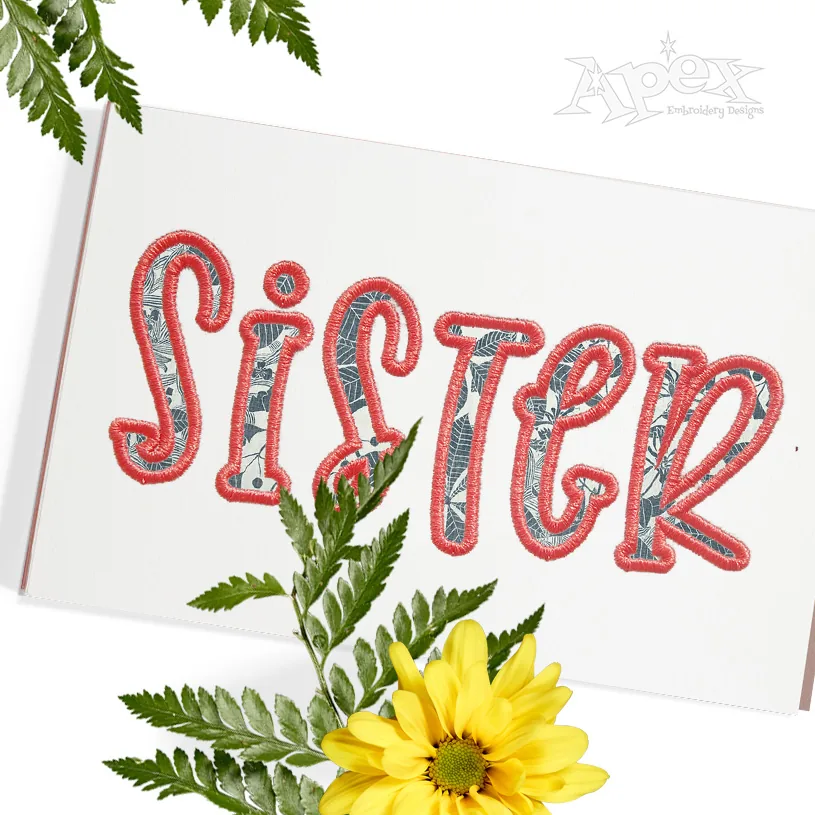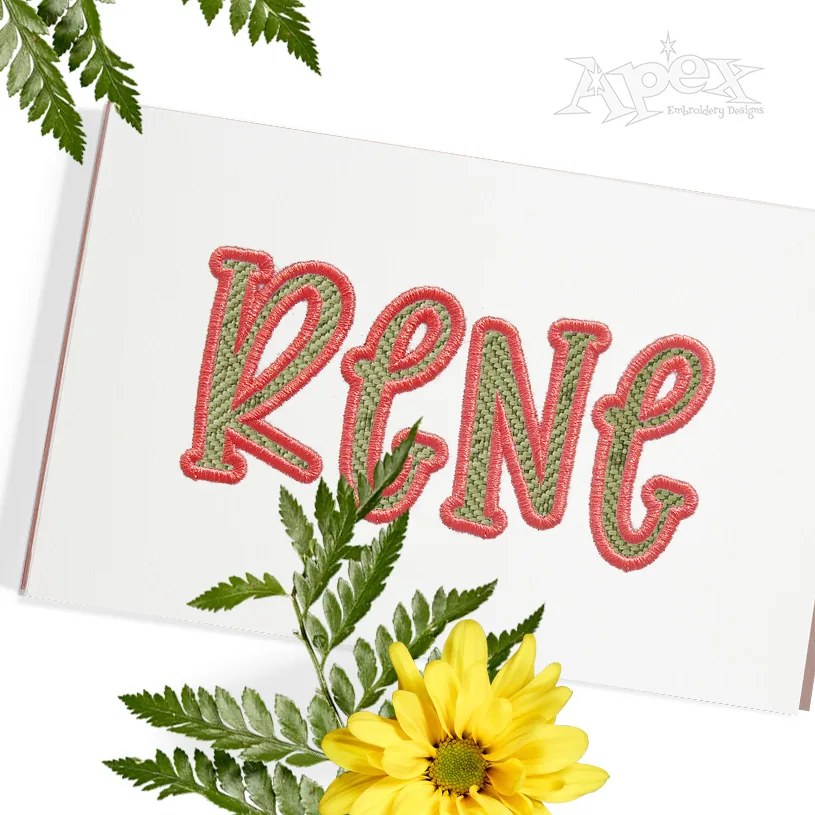
Juniper Applique Embroidery Font
Juniper was born from quiet mornings in the embroidery studio, drawn from the nostalgic warmth of rustic farmhouse script and hand-painted vintage signs. We designed this typeface to bring a soft, poetic cadence to modern applique, marrying sweeping handwritten ascenders with generous fabric windows that invite tactile storytelling. Each stroke effortlessly captures the unhurried grace of classic country living, transforming fabric scraps and lustrous thread into cherished personalized monograms and heirloom-worthy keepsakes.
Digitized to offer exquisite precision across a broad spectrum of projects, the Juniper Applique collection features full uppercase, lowercase, and thoughtfully digitized alternative lowercase glyphs to create authentic, hand-lettered connections. This complete suite arrives in four versatile, scale-balanced sizes:
Project Ideas for Juniper Applique
- Heirloom Nursery Quilts: Combine soft pastel chambray or ditsy floral appliques with smooth satin outlines to spell out your little one’s name across bespoke baby bedding.
- Personalized Canvas Market Totes: Stitch bold, botanical-print initials on heavy natural canvas for charming, personalized gifting.
- Farmhouse Kitchen & Table Linens: Elevate flour sack dish towels, runner ends, and linen cocktail napkins with delicate monograms for cozy, welcoming hospitality.
- Bespoke Resort Wear & Robes: Personalize the back of bridal robes, linen button-downs, or relaxed lounge sets for a custom, tailored boutique aesthetic.
- Holiday & Family Keepsakes: Use seasonal tartans, ticking stripes, or velvet applique inserts to create heirloom Christmas stockings and custom family pillows.
- Center Chest Placement: Position 3-inch or 4-inch letters centered between the armholes on crewnecks, cardigans, or baby rompers for an eye-catching, artisanal focal point.
- Corner Diagonal Accents: Orient the 1-inch or 2-inch lettering along a 45-degree angle approximately 1.5 to 2 inches from the hem of napkins, tea towels, and pocket handkerchiefs.
- Cuff & Hem Alignment: Use the 1-inch scale centered gracefully on shirt cuffs, sleeve borders, or pillowcase flanges for understated, bespoke monogramming.
- Off-Center Pillow Styling: Frame a modern linen throw cushion by placing a large, bold monogram in the lower right-hand quadrant for a curated interior design look.
Juniper Applique Craft & Letterform Details
True applique script requires a meticulous balance of structural support and visual delicacy. When digitizing Juniper, we paid careful attention to the density and travel pathways of every satin border, ensuring complete fabric coverage without creating excessive bulk at the intersections. Each loop and curve is mapped with deliberate start-and-stop sequences that anchor your applique base cleanly before crowning it with rich, lustrous satin stitching.
The alternative lowercase glyphs were crafted specifically to mimic the organic ebb and flow of natural calligraphy. Where standard digitized alphabets can sometimes feel stiff or disjointed, Juniper’s alternate terminal strokes and fluid connecting tails drape effortlessly from letter to letter. The open applique windows allow your chosen fabrics—whether ticking stripes, Liberty florals, or crisp solid linens—to breathe, creating a harmonious dialogue between stitch, texture, and pattern.